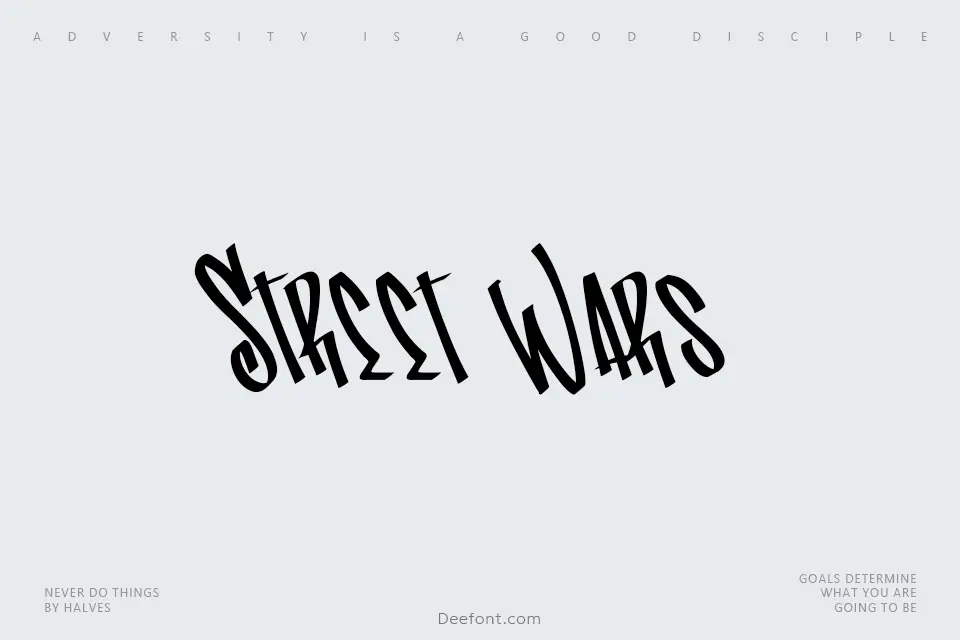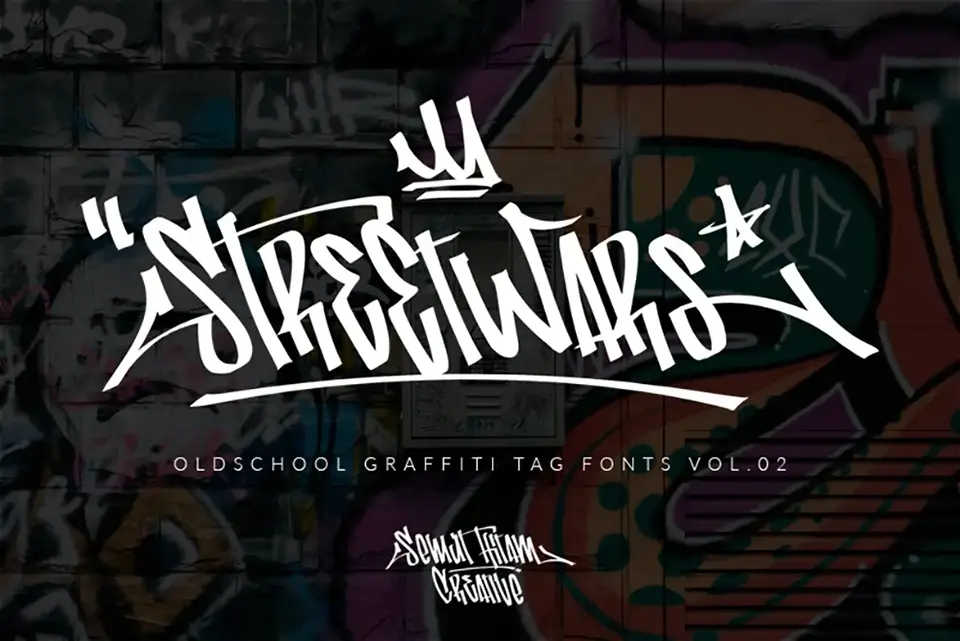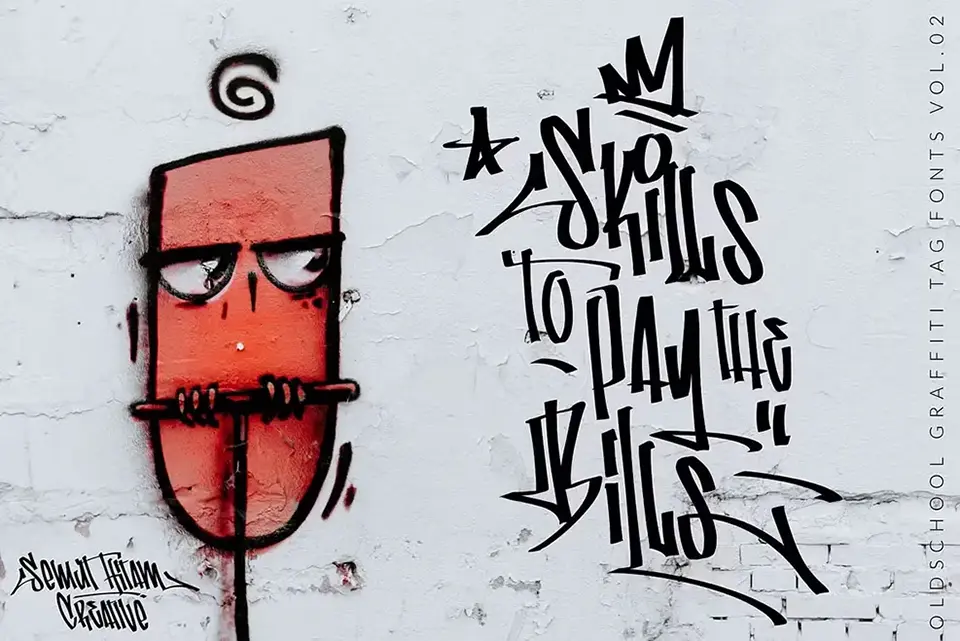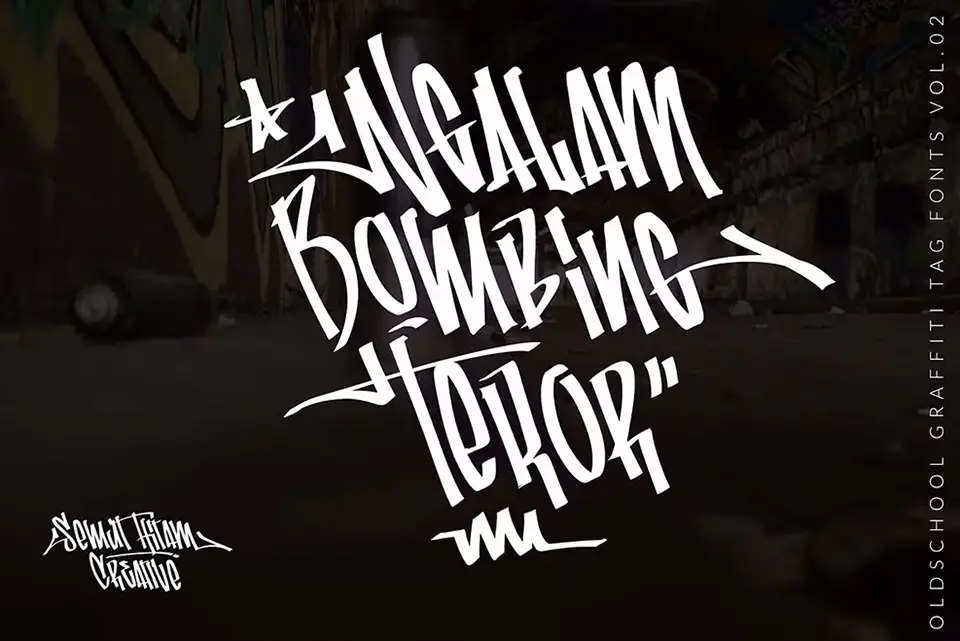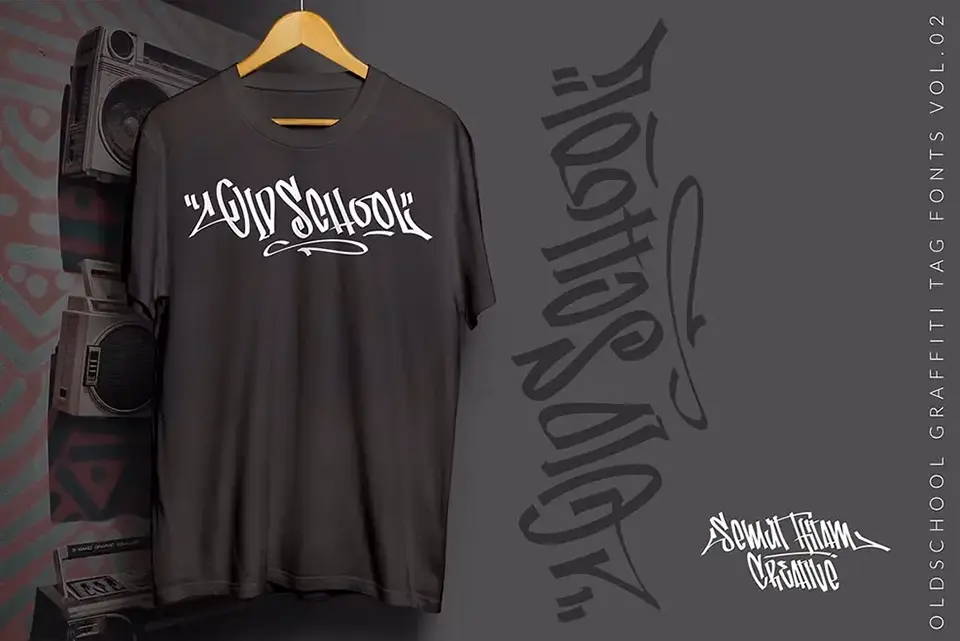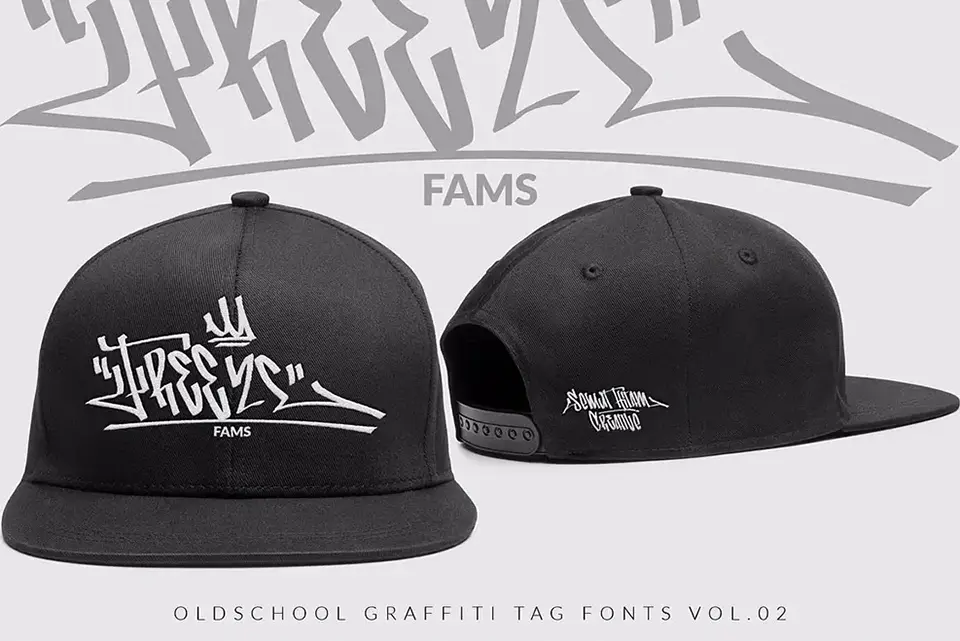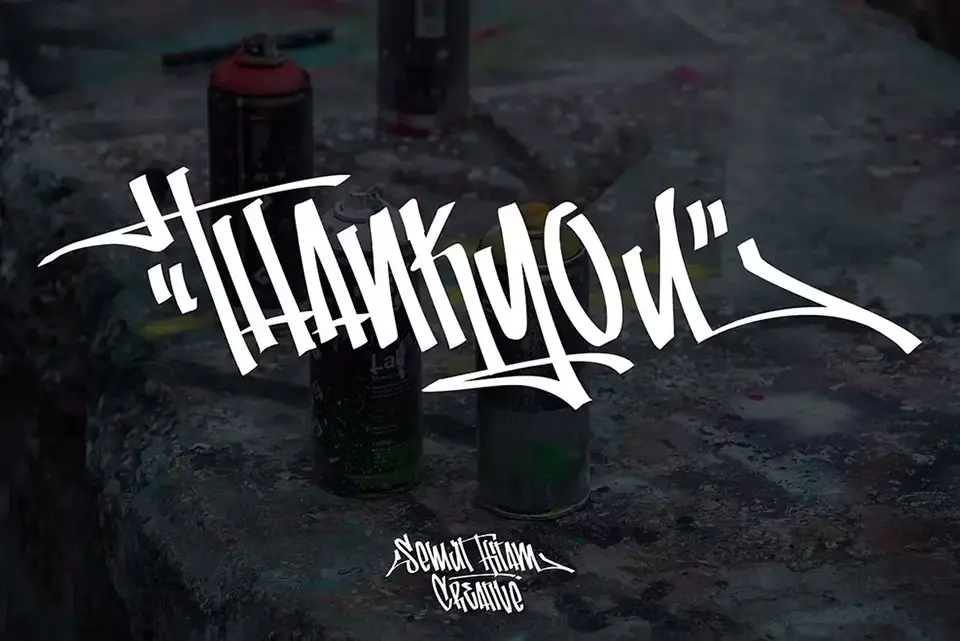
Street Wars Font
Street Wars is a bold and edgy graffiti-style script font that brings urban street art energy to your designs. With its distinctive hand-painted aesthetic and dynamic letterforms, this font excels at creating eye-catching headlines, logos, and poster designs. Perfect for brands seeking an authentic street culture vibe, tattoo artwork, and contemporary creative projects. The font supports extensive language coverage with over 278 languages, making it ideal for global applications.